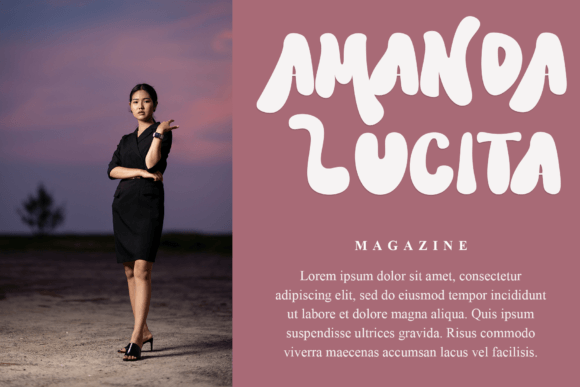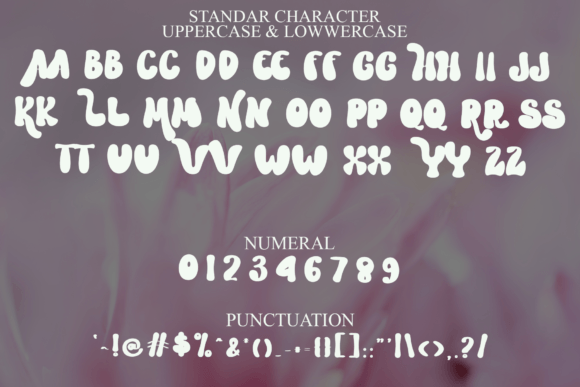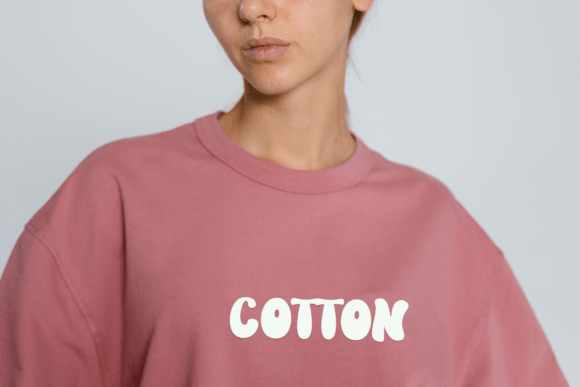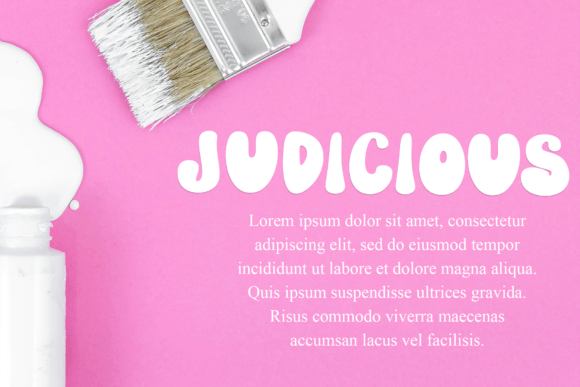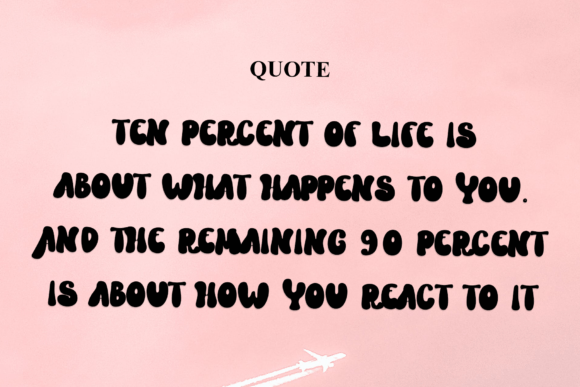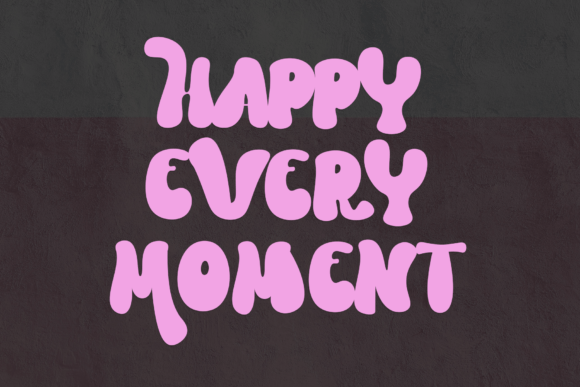
Introducing Everyday Font: The Epitome of Freshness and Casual Elegance
In the realm of typography, fonts play a pivotal role in shaping the visual identity of a brand, product, or creative project. Among the myriad of fonts available, Everyday Font stands out as a charming display font that embodies a sense of freshness and casual elegance. Its unique fluid strokes and organic lines infuse a laid-back vibe, making it an ideal choice for a wide range of design projects.
The Characteristics of Everyday Font
Everyday Font is distinguished by its fluid and organic design. The strokes are smooth and connected, giving the font a harmonious and natural look. This characteristic makes it perfect for designs that require a touch of warmth and personality. The font’s casual elegance ensures that it can be used in various contexts, from formal branding to informal social media graphics.
One of the key advantages of Everyday Font is its versatility. It can be effectively used in a multitude of design projects, including:
- Branding: Everyday Font can help create a unique and memorable brand identity. Its casual yet elegant appearance makes it suitable for brands that want to convey a sense of approachability and sophistication.
- Invitations: Whether it’s a wedding invitation, a birthday party invite, or any other special occasion, Everyday Font can add a touch of warmth and personalization.
- Social Media Graphics: In the digital age, social media graphics are crucial for engaging audiences. Everyday Font can help create eye-catching and engaging graphics that stand out in crowded social media feeds.
Why Choose Everyday Font?
There are several reasons why designers and crafters might prefer Everyday Font over other fonts:
- Unique Aesthetic: Everyday Font offers a distinctive look that can set a design apart from others.
- Emotional Connection: The warmth and personality infused in the font can help create an emotional connection with the audience.
- Versatility: Its adaptability to various design projects makes it a valuable addition to any designer’s toolkit.
Tips for Using Everyday Font Effectively
To maximize the impact of Everyday Font, consider the following tips:
- Pair with Complementary Fonts: Combine Everyday Font with simpler fonts to create visual hierarchy and contrast.
- Adjust Size and Color: Experiment with different sizes and colors to ensure the font complements the overall design.
- Consider Context: Ensure that the font aligns with the message and tone of the project.
Everyday Font is a charming display font that brings a sense of freshness and casual elegance to any design project. Its fluid strokes, organic lines, and versatile nature make it an excellent choice for designers and crafters looking to add a touch of warmth and personality to their work. Whether you’re working on branding, invitations, social media graphics, or any other project, Everyday Font is sure to make a lasting impression.